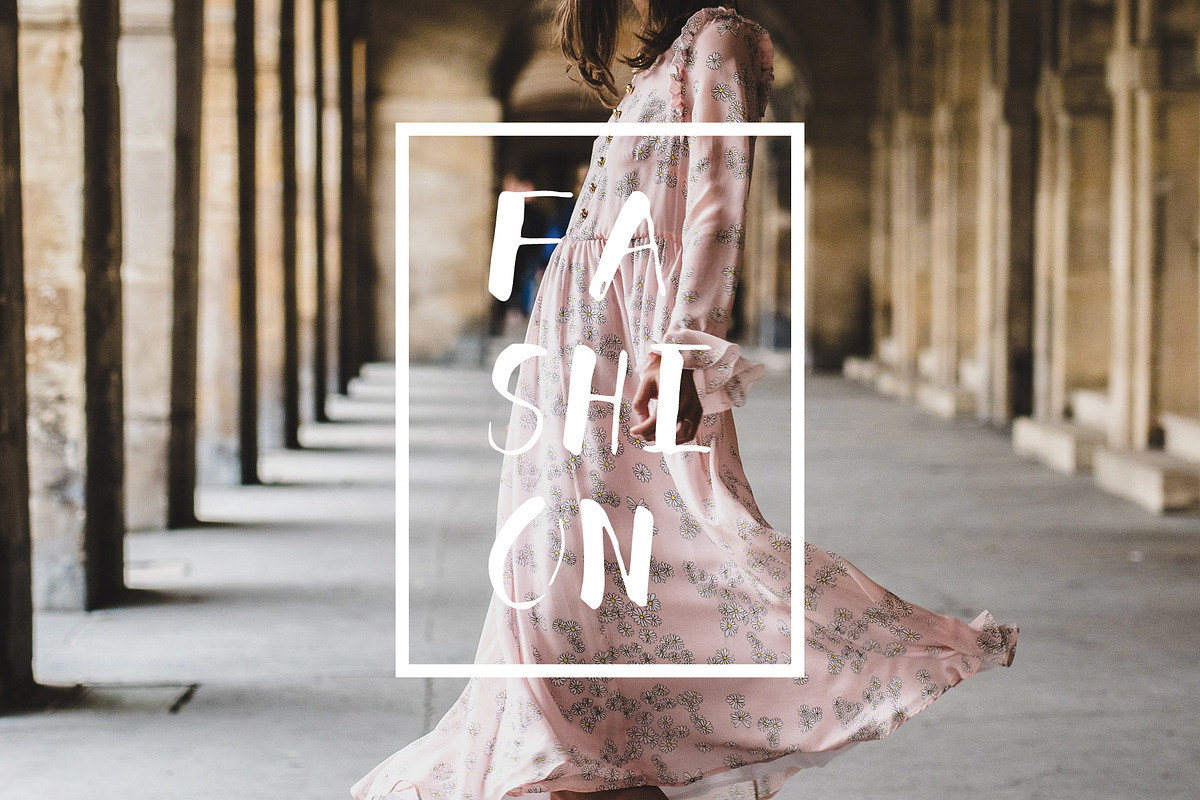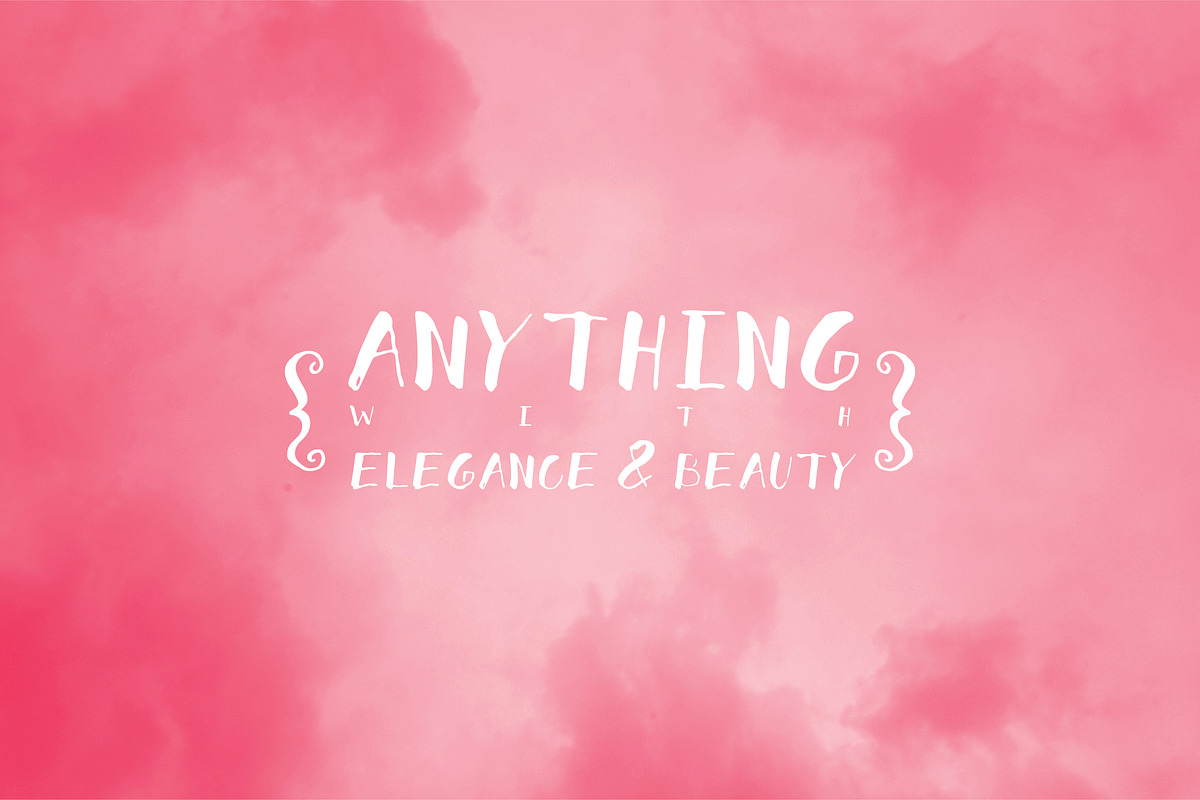
Thick N Thin
Thick N Thin is a display font. The combination of thick and thin lines gives the font a elevated elegant feel. The hand lettering look keeps it grounded with a clunky quality. These two things combine to create a clunky elegance. Thick N Thin is good for weddings, fashion photography or anything with elegance and beauty.
1. Thick N Thin comes in uppercase and lowercase letters, with numbers and punctuation.